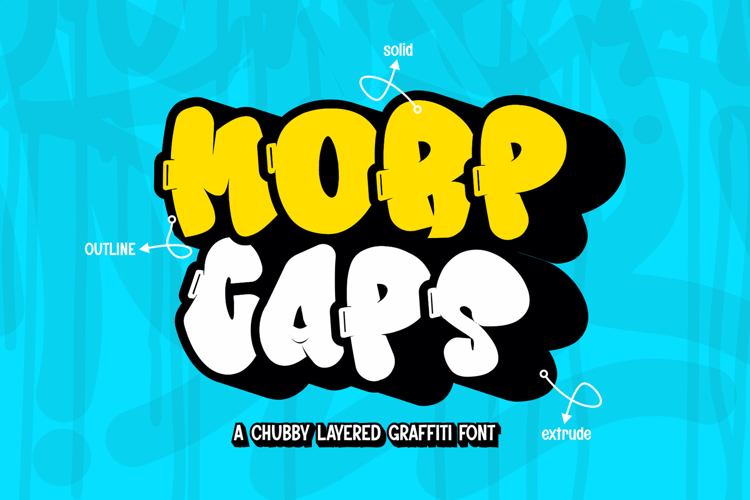
Unleash the urban energy with Morp Caps – a bold, chubby layered graffiti font that captures the essence of street art and modern design. This playful yet impactful typeface brings a fresh vibe to any project, whether you're designing posters, logos, or merchandise. Its rounded edges and vibrant layers create a dynamic visual presence that demands attention. Perfect for branding, event promotions, and creative visuals, Morp Caps lets you explore the art of typography like never before.
Step up your design game with Morp Caps and add a touch of urban flair to your next creative project!